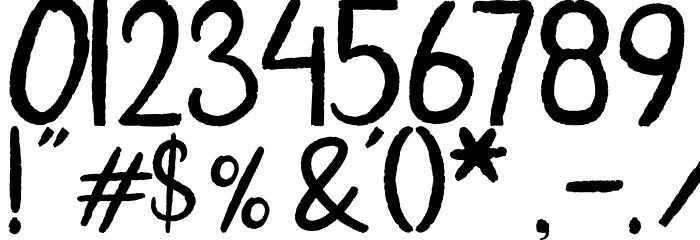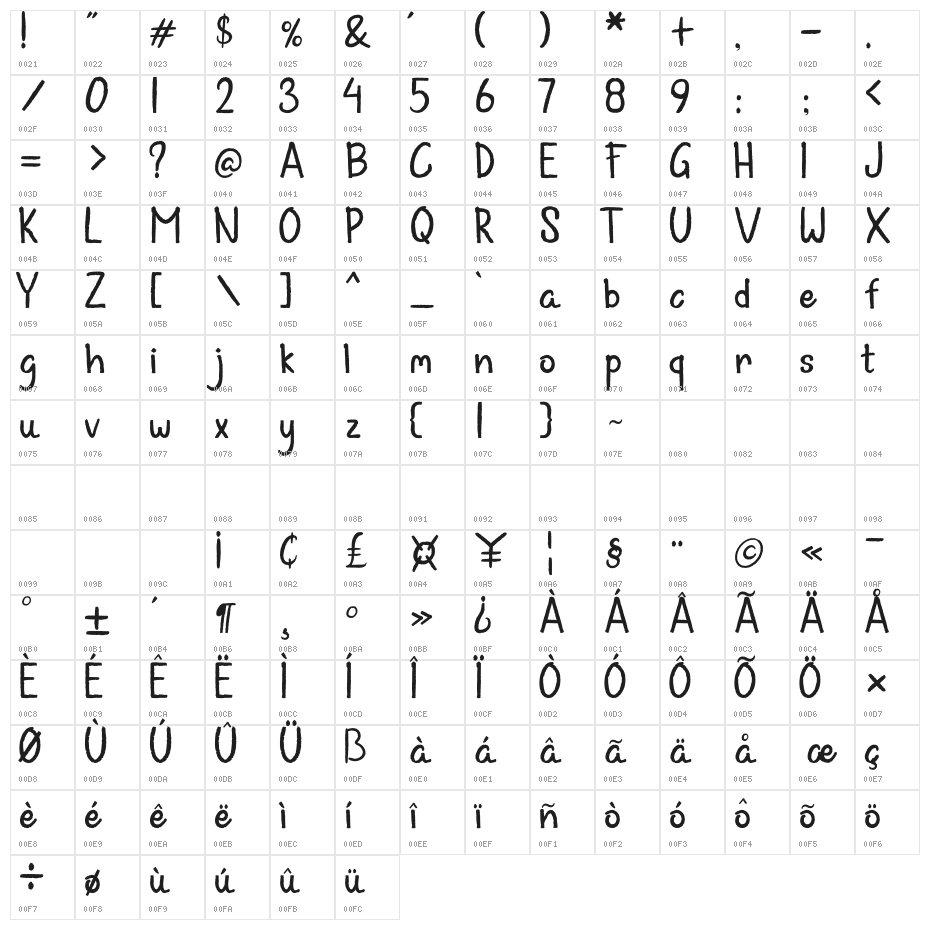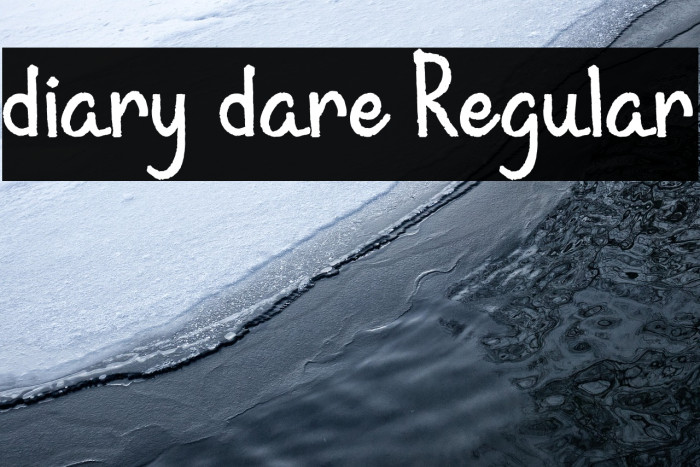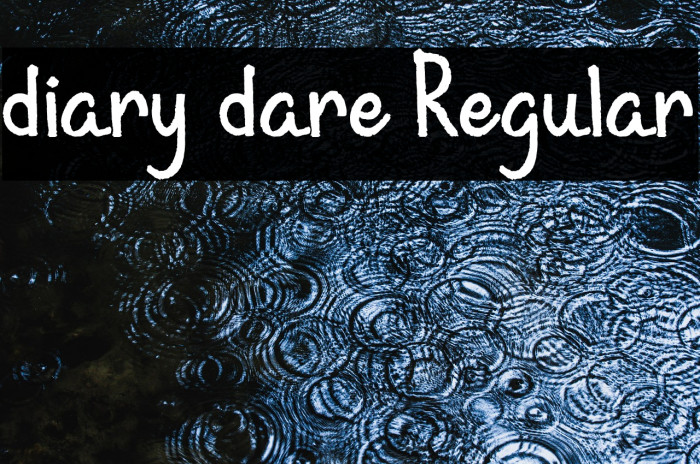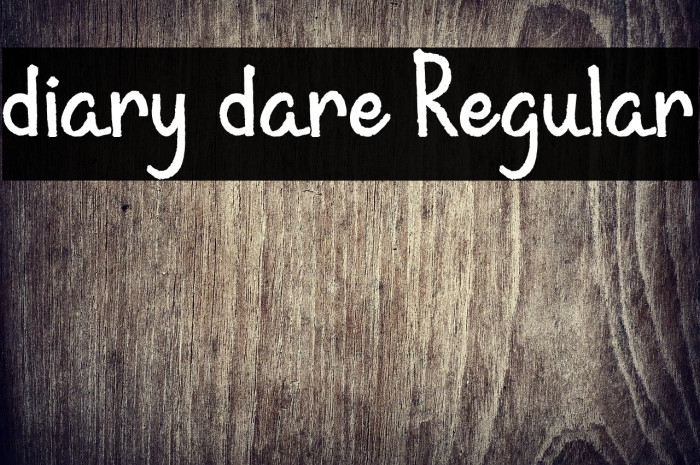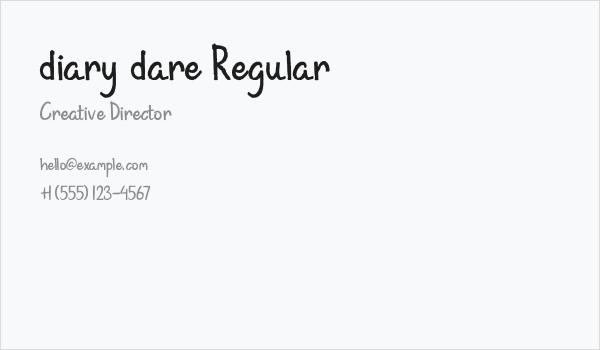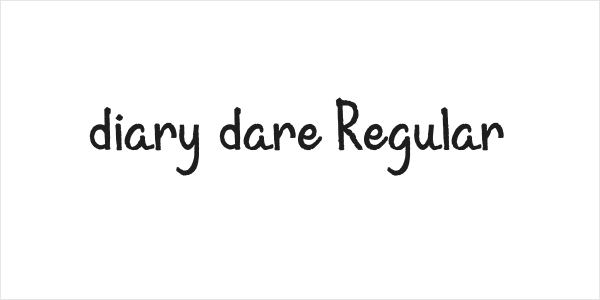
diary dare Regular Font
diary dare Regular Description
This font features a playful and casual handwritten style, characterized by its irregular strokes and organic flow. The letters have a slightly uneven baseline, giving them a dynamic and lively appearance. The uppercase and lowercase letters maintain a consistent style, with rounded edges and a friendly demeanor. The numerals and special characters follow the same informal aesthetic, making the font suitable for creative and informal applications. Its unique charm lies in its imperfect, human-like touch, which adds warmth and personality to any design.
| Proposed Projects | Ideal for personal diaries, casual invitations, children's books, and creative social media graphics. |